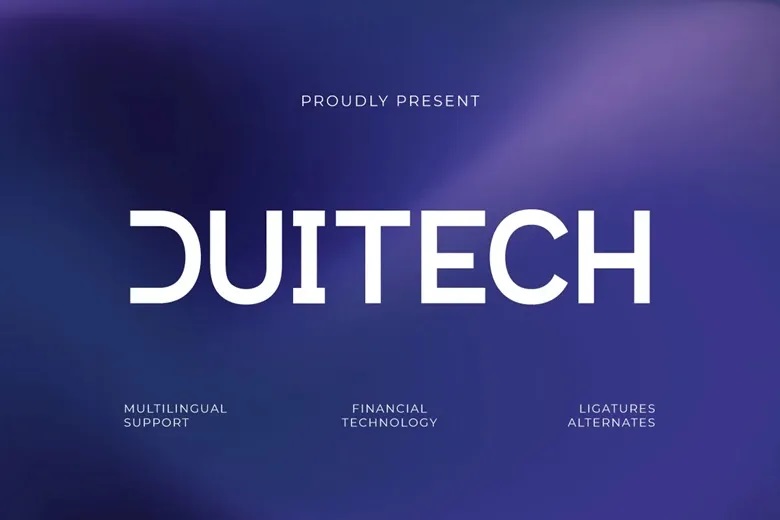
Duitech Font
Duitech is a modern sans-serif typeface made for the visual needs of fintech and digital banking. With its clean, professional letterforms, this font gives a premium, trustworthy feel. It looks good for building brand identities in today’s fast-moving, tech-focused financial world.
This font is a great choice for corporate branding, crypto platforms, and digital banking identities that need a minimalist but strong look. Duitech helps designers create modern, stable, and innovative visuals for the finance industry.
Duitech Sans Serif Font